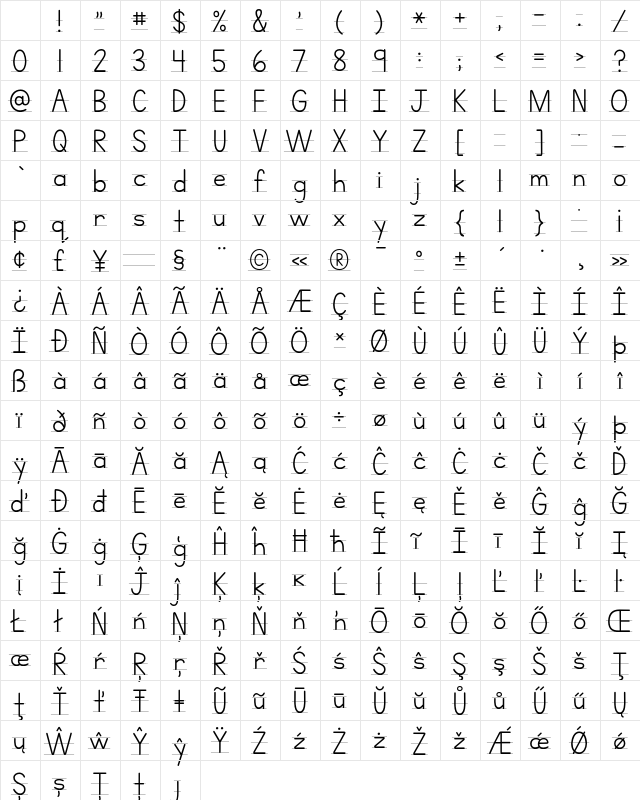
Complete KG Teacher Created Thin 2Lined Regular glyph index. Displaying only characters natively supported by KG Teacher Created Thin 2Lined Regular font.
KG Teacher Created Thin 2Lined is a composed and adaptable typeface that performs quietly and consistently across a wide range of design contexts. Its slender proportions lend an understated elegance to any composition.